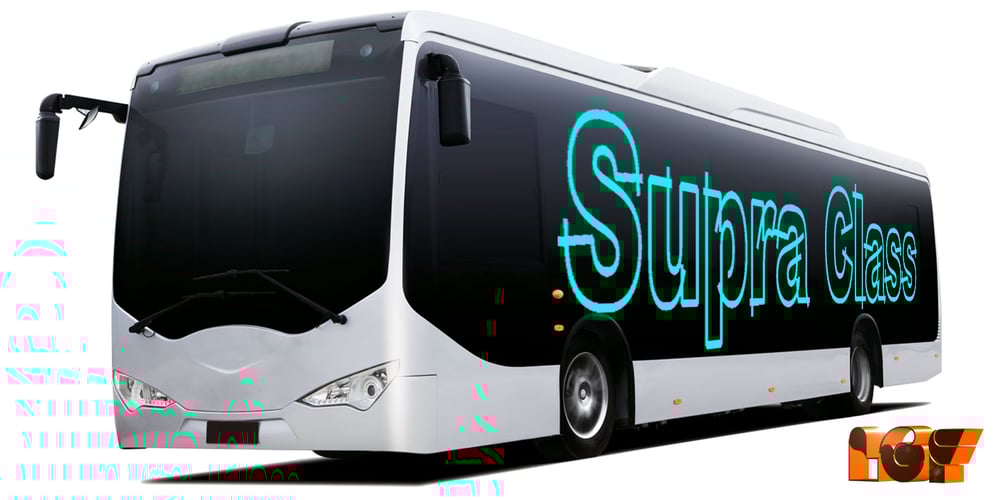
LGF Besitos Round Font Family was designed by Manuel Lage and published by LGF Fonts. LGF Besitos Round contains 3 styles and family package options. BESITOS is a deconstruction INSPIRED on a sans serif type, in which the weights of the source did not mark the width of the letter but the lines that compose it is made in two variants according to their lines end up at right angles or curves.